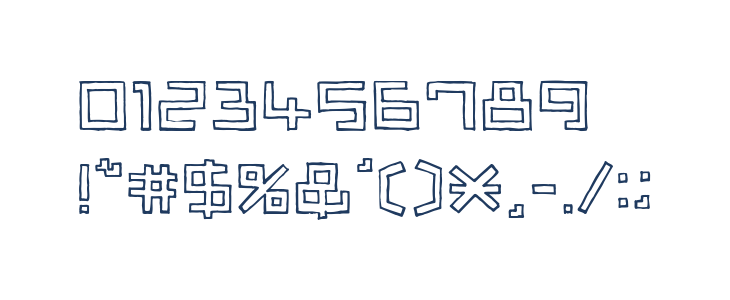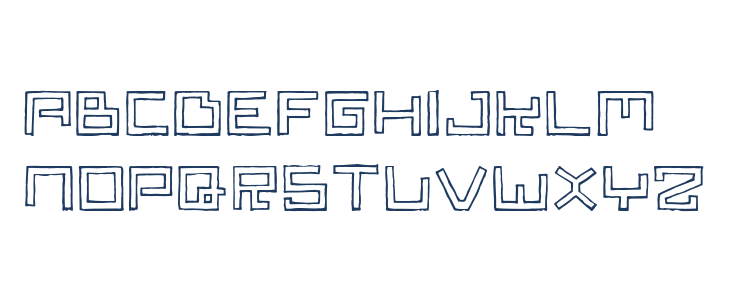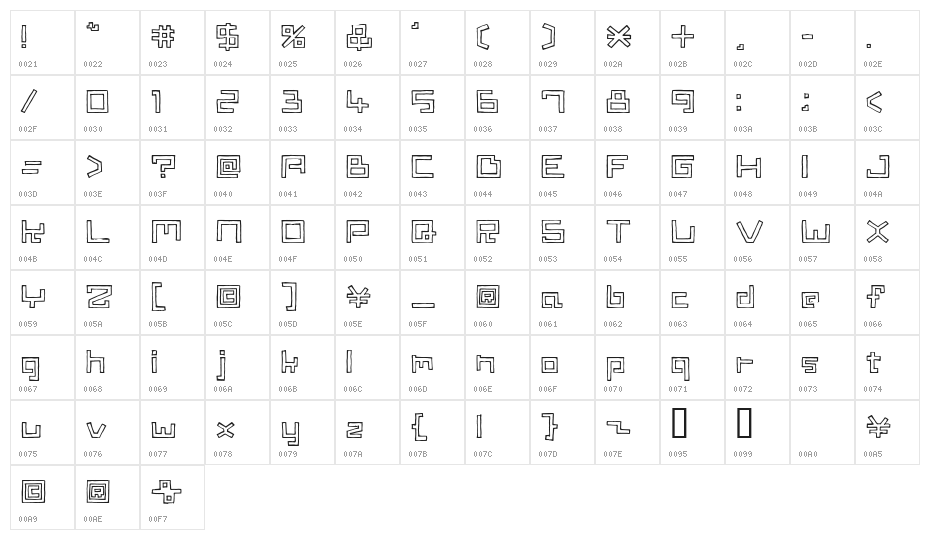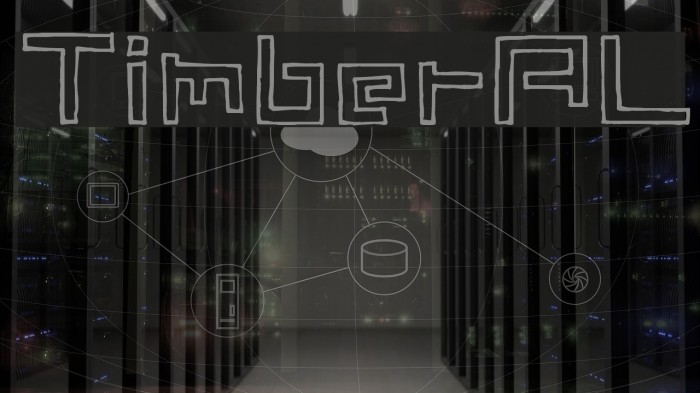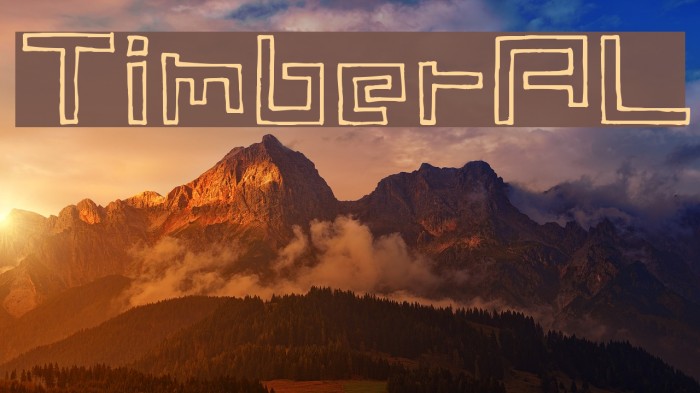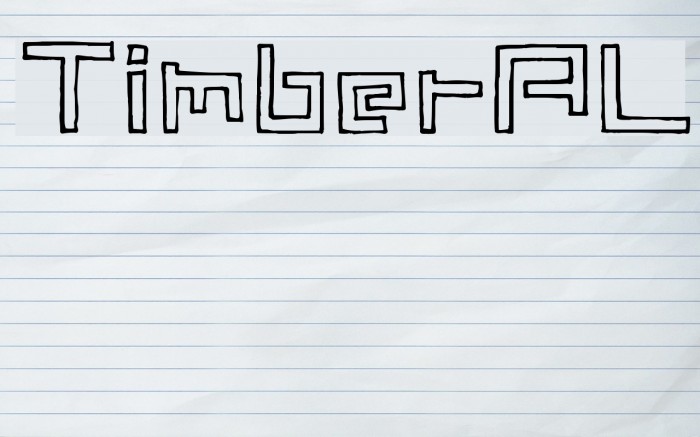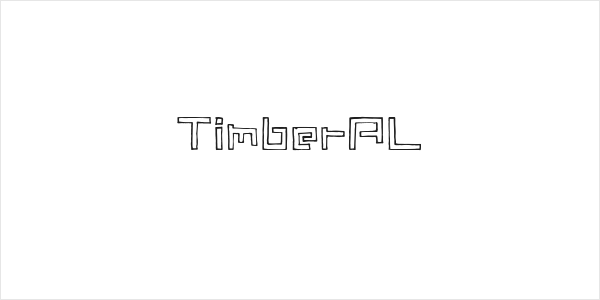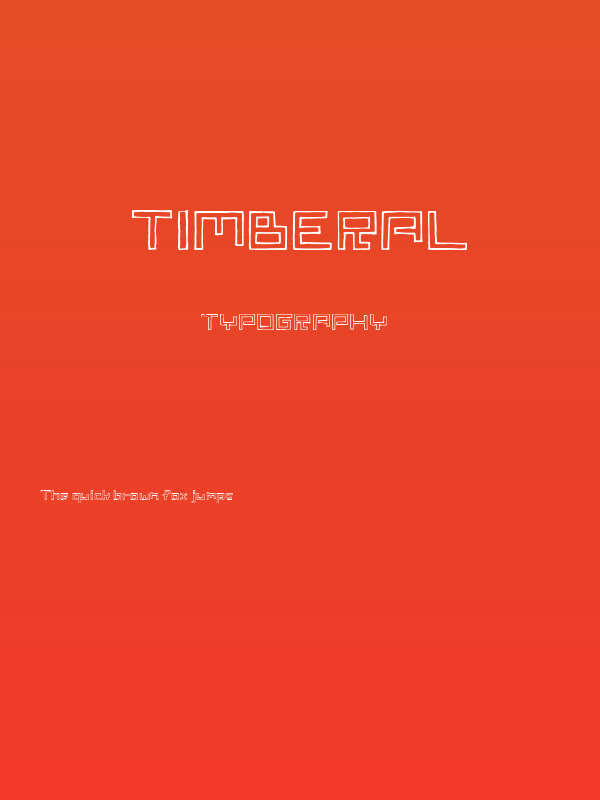
TimberAL Font
This font features a unique, geometric design with a hand-drawn aesthetic. Each character is outlined with a rough, sketch-like quality, giving it a rustic and organic feel. The uppercase and lowercase letters maintain a consistent style, with angular lines and sharp corners. Numbers and special characters follow the same design principles, ensuring a cohesive look across all elements. The font's distinct style makes it stand out, offering a creative and artistic touch to any project.
| Proposed Projects | Ideal for creative projects such as posters, album covers, or branding materials that require a unique and artistic touch. |